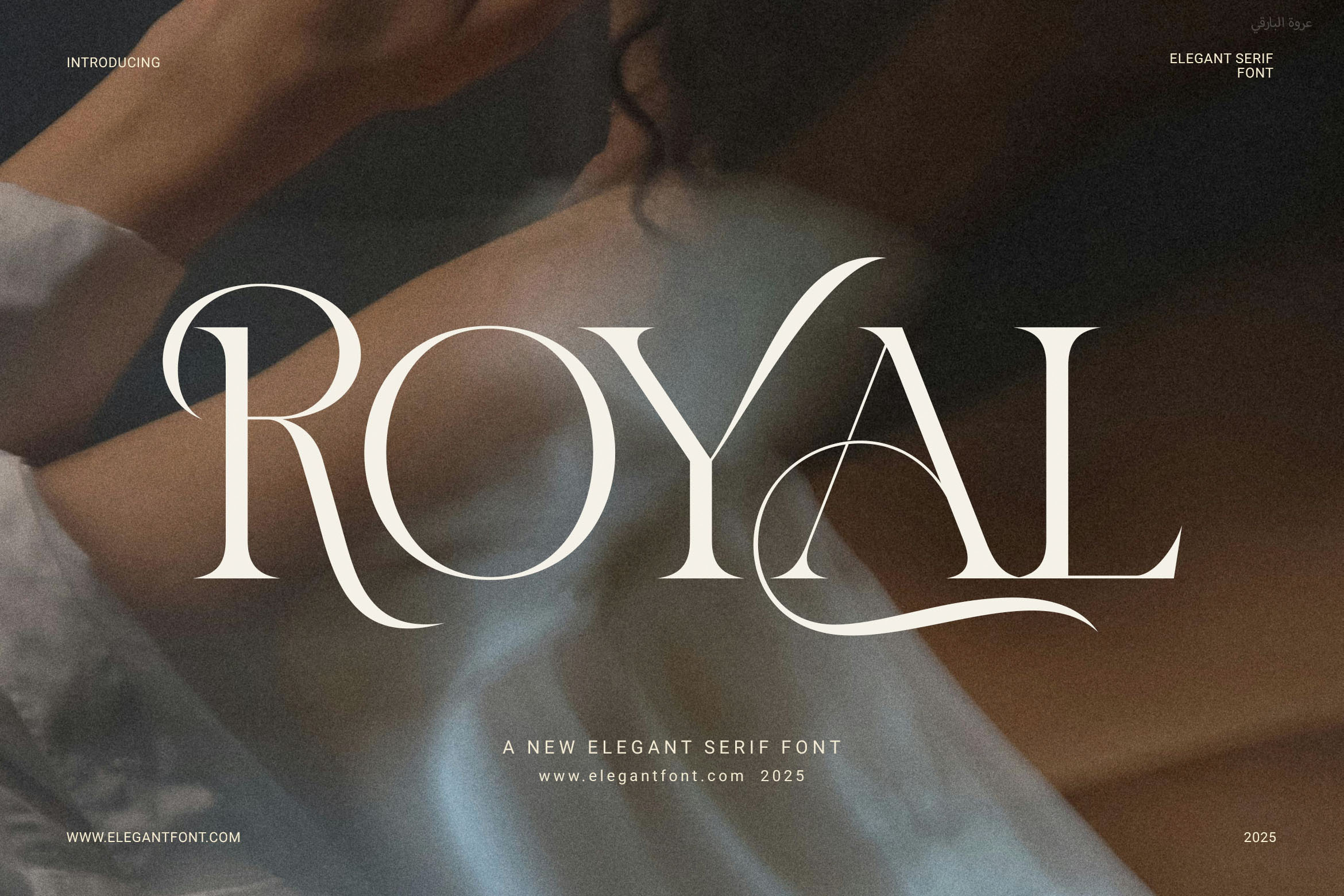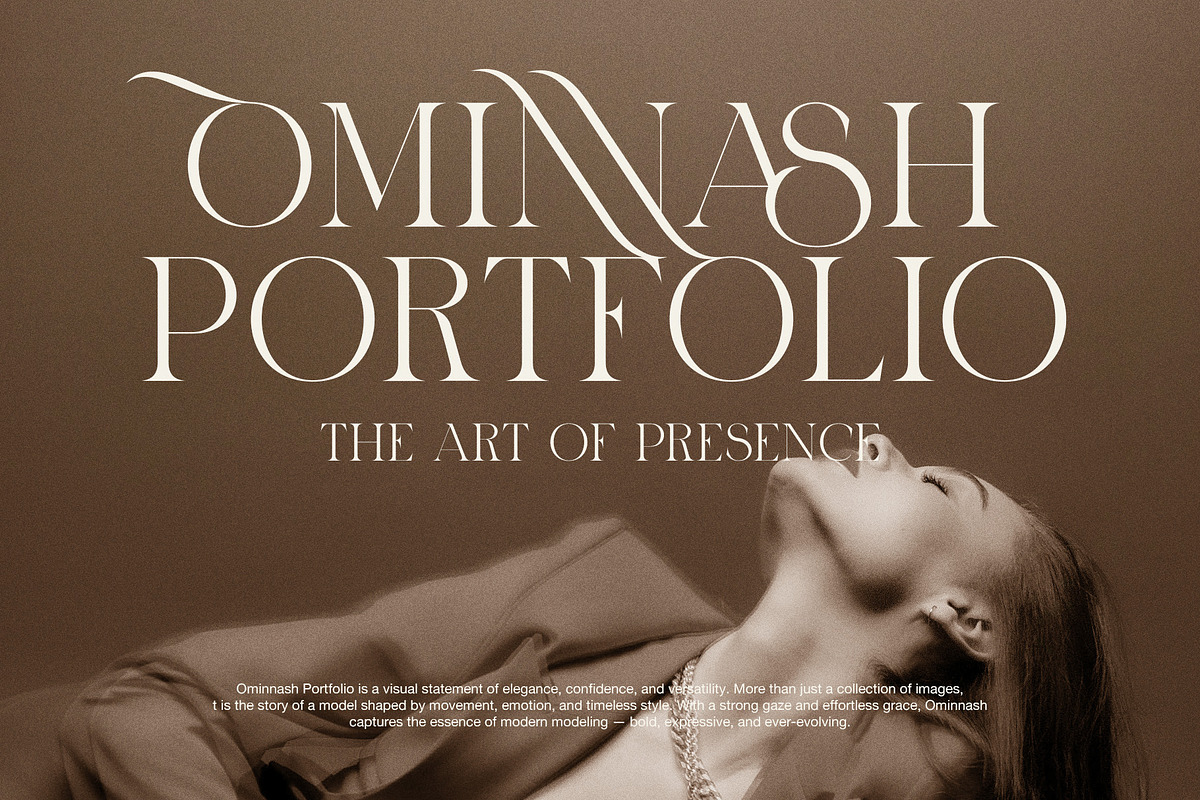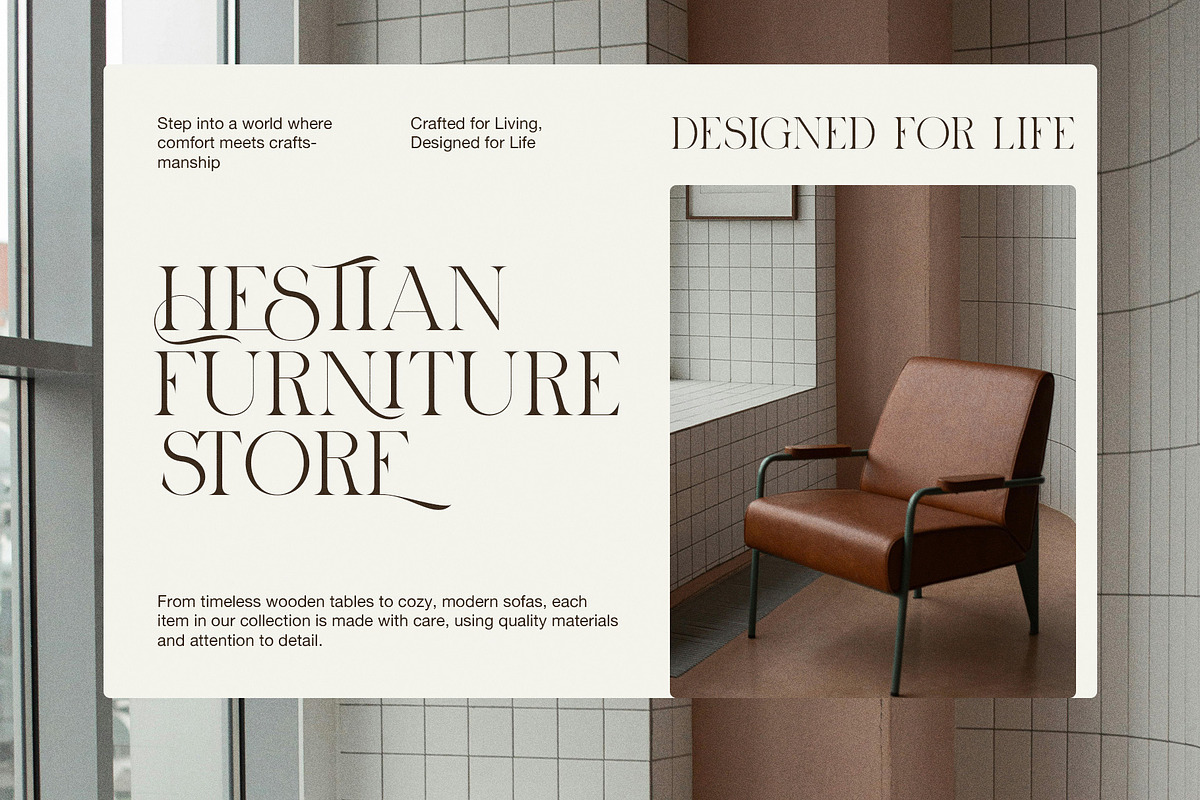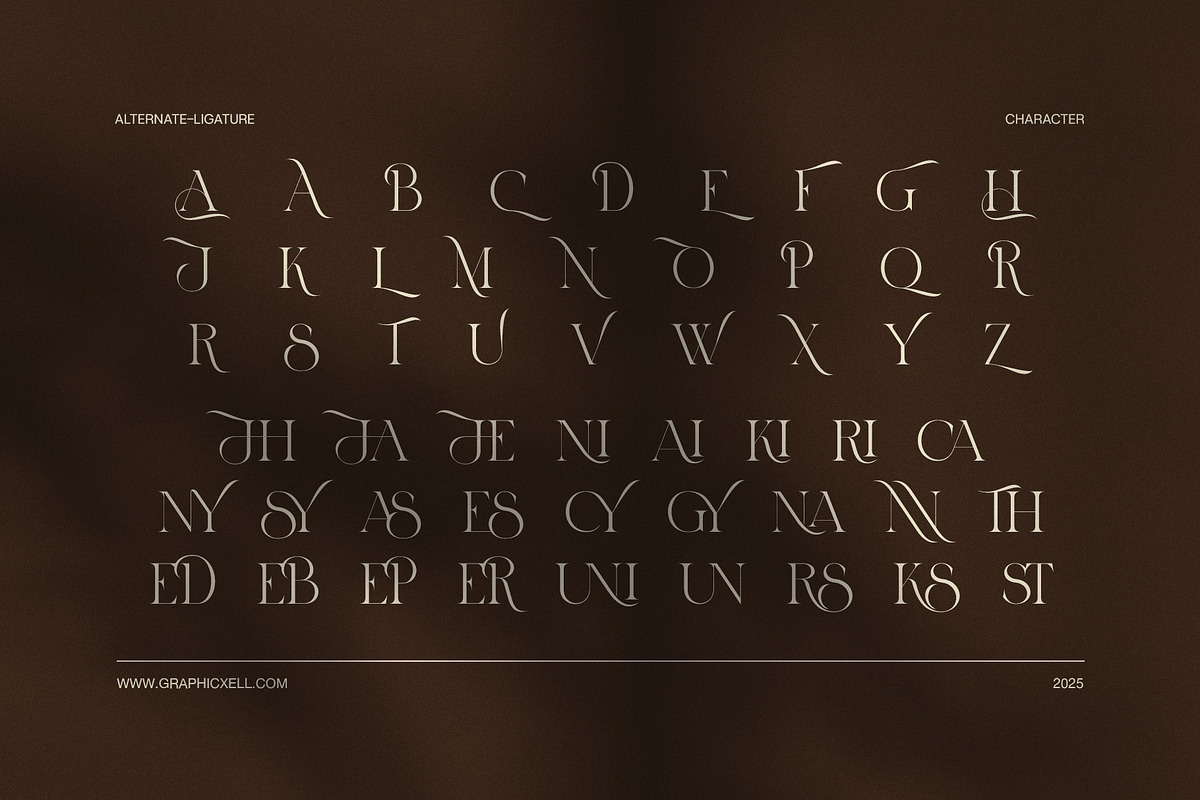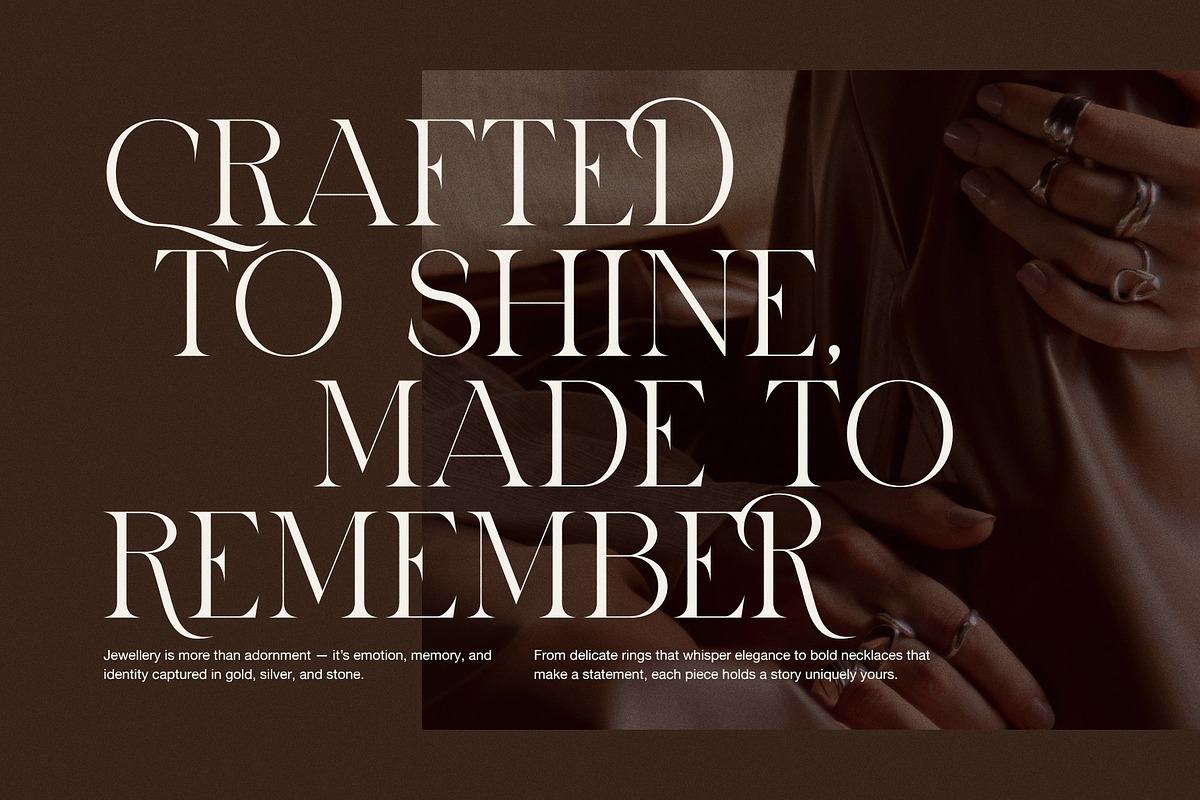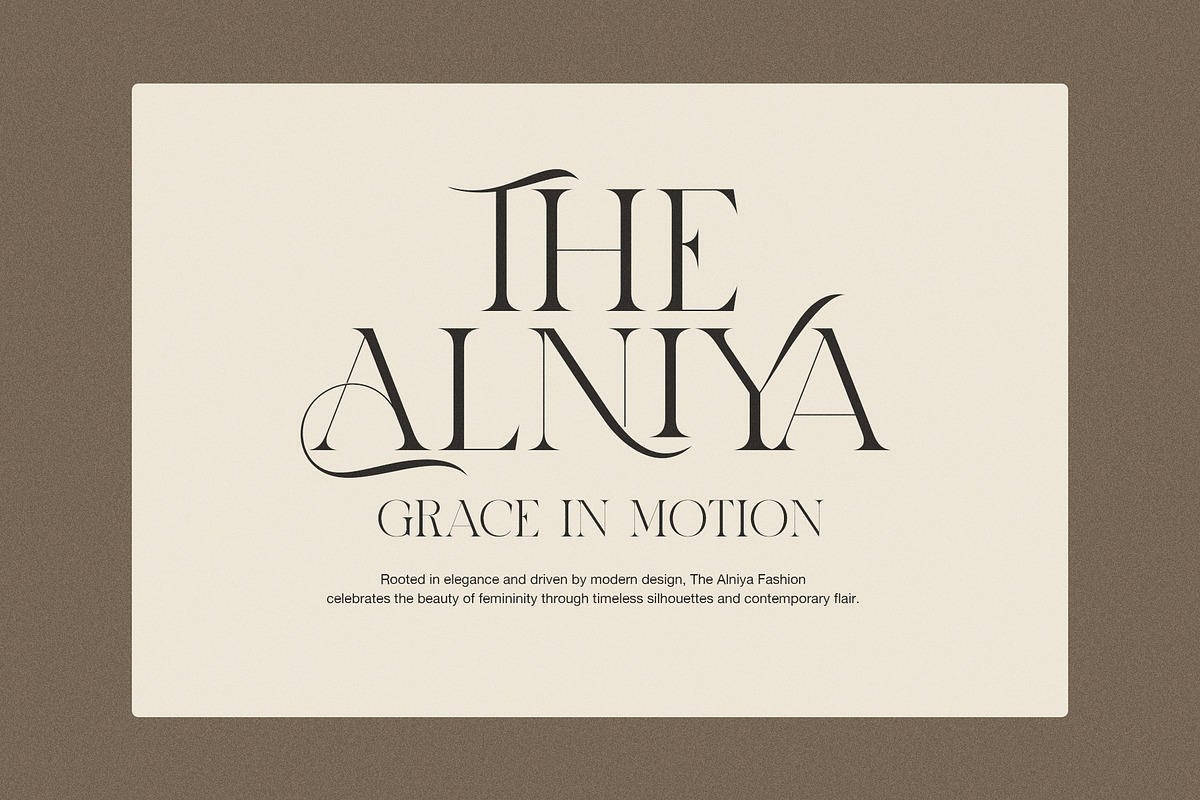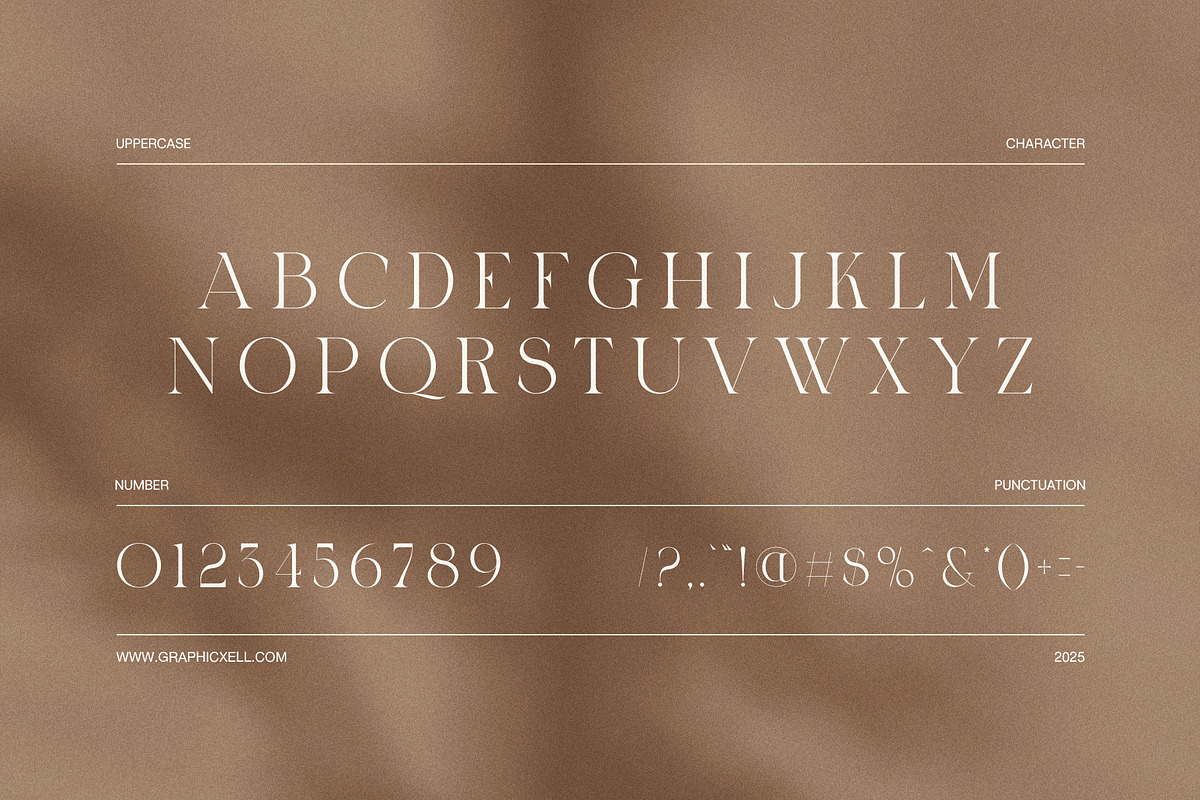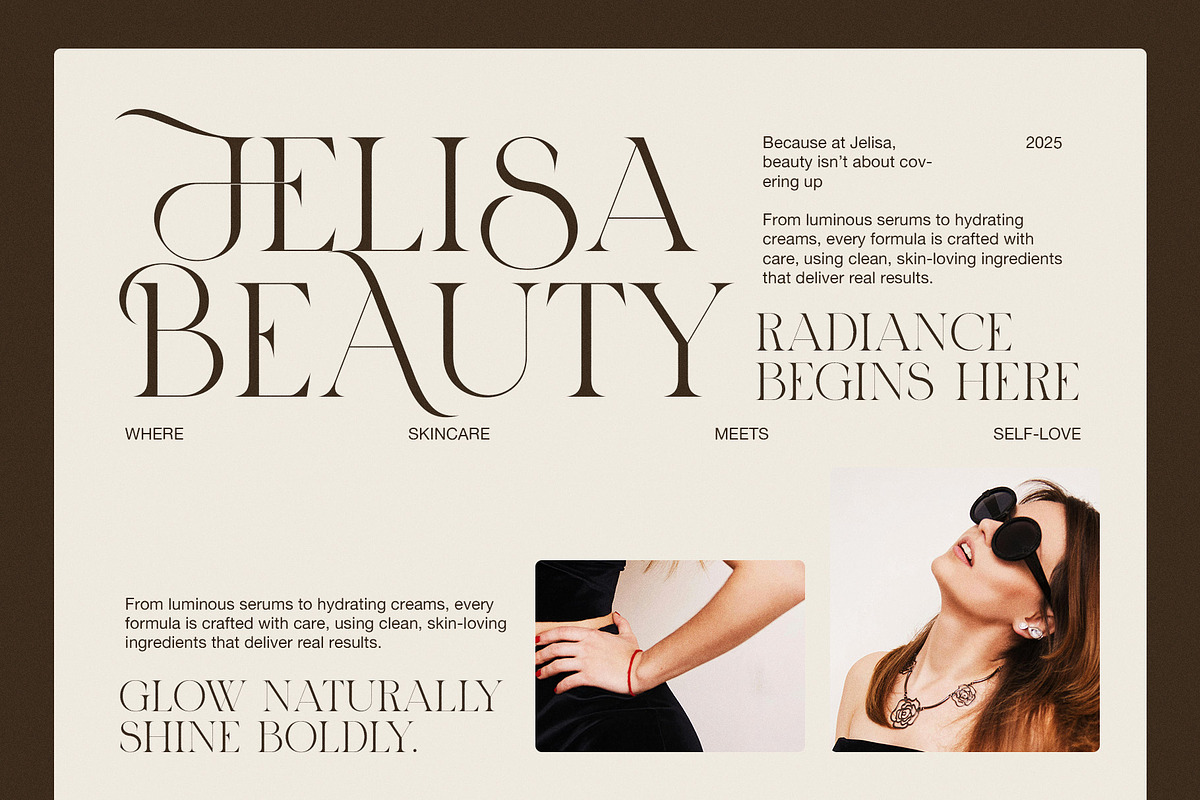
Royal Stylish Serif Font
Royal Stylish Serif Font is a sleek and elegant serif typeface designed to give your projects a bold, modern touch. With its clean lines and carefully balanced proportions, this font brings sophistication and charm to everything you create.
Not only is Royal refined in appearance, but it’s also built for versatility. Whether you're crafting a logo, designing a website, or laying out a magazine spread, this font ensures that your text remains stylish and easy to read. Because of its proportional spacing and functional ligatures, every letter flows beautifully into the next, adding a polished, professional look.
Why should you choose Royal Stylish Serif?
Because it offers elegance without being too formal. In fact, its subtle details make it perfect for brands that want to appear both premium and modern. Additionally, Royal works across a wide range of industries—from fashion and beauty to food, travel, and lifestyle branding.
Use Royal Serif for:
High-end logos and brand marks
Website headers and homepage designs
Product packaging and advertising
Magazine titles and layout spreads
Boutique labels and fashion brands
Social media graphics and banners
Along with its modern look, Royal includes full uppercase and lowercase letters, numerals, punctuation, and multilingual support. As a result, it’s ready for both print and digital work—no matter the platform.
Stylish serif font with a modern look
Beautiful ligatures that enhance design flow
Easy-to-read shapes with balanced spacing
Supports multiple languages
In summary, Royal Stylish Serif Font helps you create eye-catching and elegant designs that leave a lasting impression. Whether for branding or content, Royal is the perfect font to elevate your work with class and style.